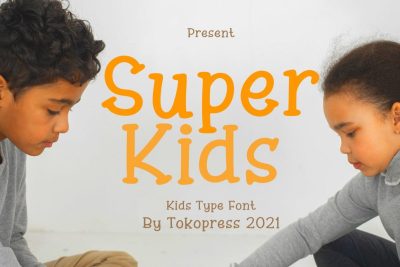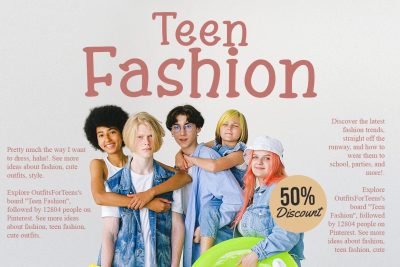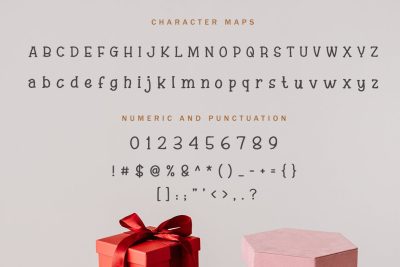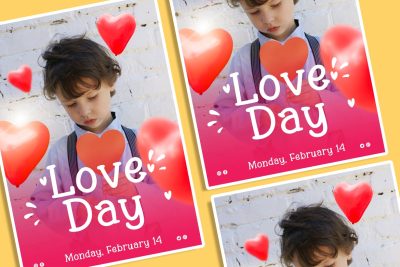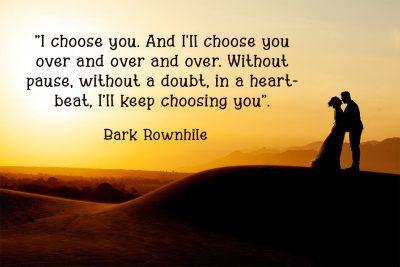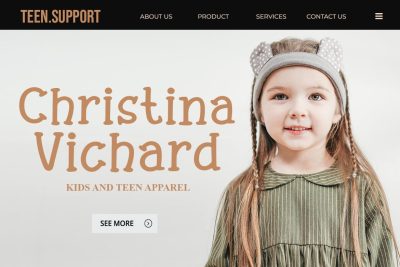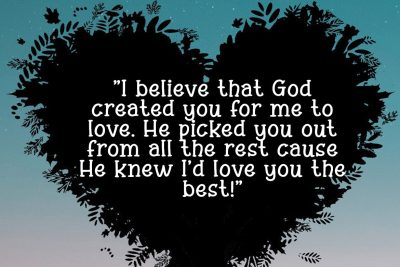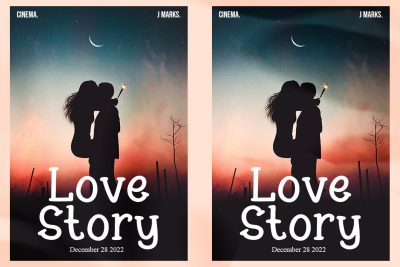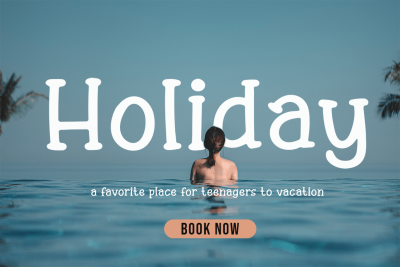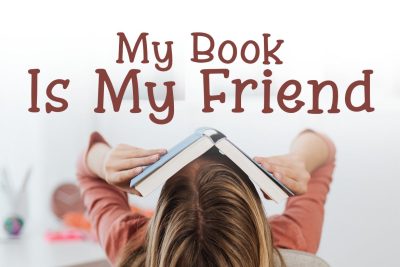
Handwriting font Super Kids is a bright, cheerful typeface that captures the essence of childhood. This font combines soft, rounded shapes with playful curves, creating a look that feels warm and welcoming. Its slightly whimsical letters add a touch of fun, making it ideal for designs that connect with young audiences. With its bold, clean structure, Super Kids ensures excellent readability while maintaining a friendly appearance.
Each character in handwriting font Super Kids has a gentle, hand-drawn feel, adding unique personality to the text. The organic design and easygoing style make it perfect for projects needing a lighthearted tone. Super Kids is versatile enough for both titles and body text, adding delightful charm to headings, captions, and short paragraphs. Its inviting style creates a positive atmosphere, making it ideal for educational, entertainment, and family-friendly themes.
Handwriting Font Super Kids Ideal Users
Super Kids is especially suited for educators, childrenโs book authors, and designers focused on kidsโ projects. For example, teachers can use this font to create friendly classroom materials, like worksheets, posters, and activity sheets. The cheerful style makes learning materials approachable, encouraging young students to feel comfortable and excited about learning. Itโs also perfect for educational apps, presentations, and digital tools that need a child-centered touch.
Childrenโs book authors and illustrators will also find Super Kids beneficial for their designs. This font works beautifully on book covers, chapter titles, and page headers, adding a friendly tone to childrenโs literature. Itโs particularly suited for books with themes of adventure, friendship, or discovery, as its joyful style complements these themes. For designers working on childrenโs products like toys, clothing, or educational games, Super Kids adds a playful charm that resonates with young audiences.
In addition, social media managers and content creators targeting families, educators, and childrenโs brands can benefit from Super Kids. This font is ideal for family-friendly posts, blog graphics, and promotional materials that need a warm, approachable tone. Its hand-drawn quality adds a personal touch, helping brands connect more effectively with their audience. Overall, handwriting font Super Kids is perfect for anyone looking to create designs with joy, creativity, and a positive spirit, leaving a lasting impression on viewers.